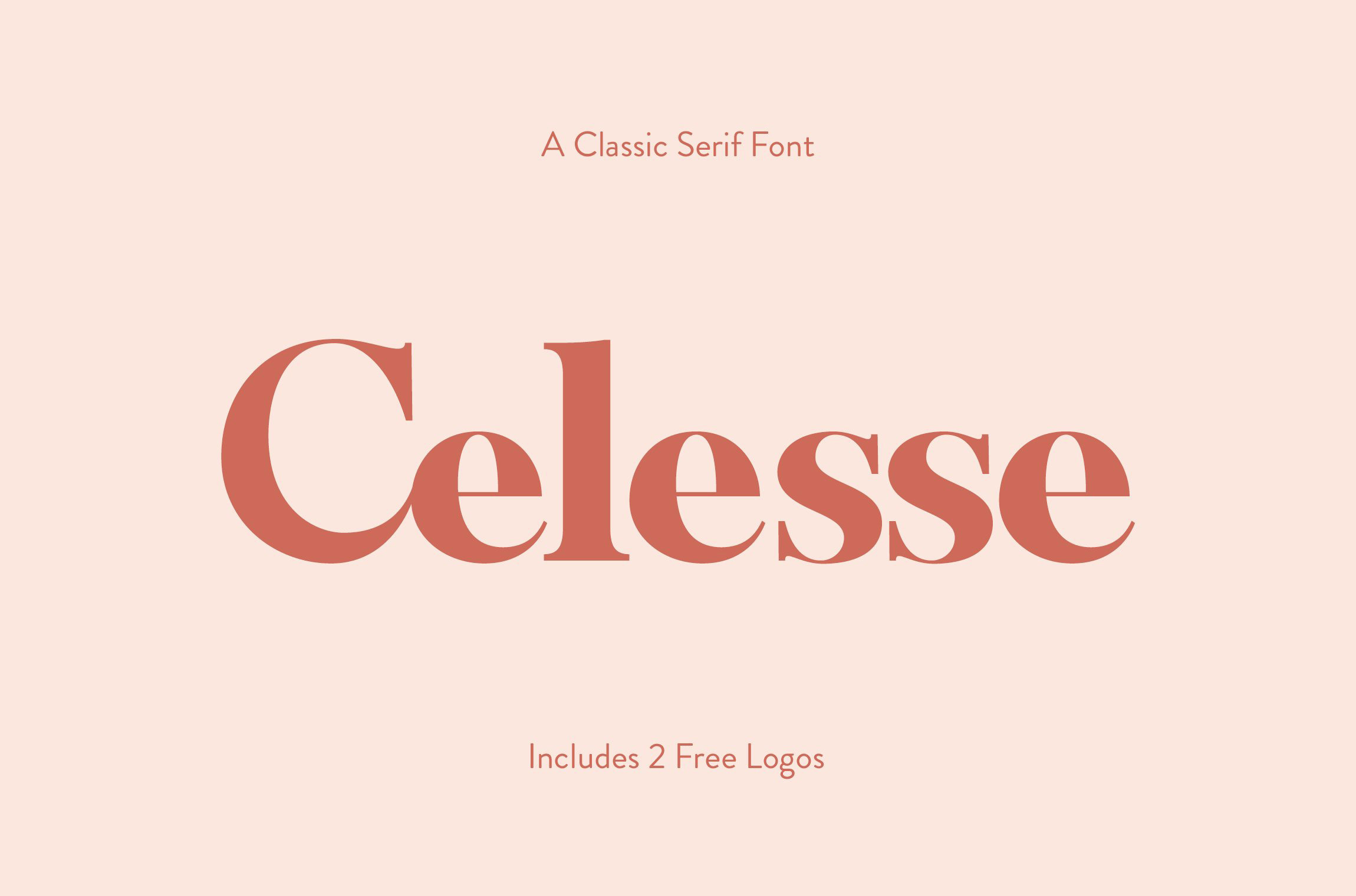
Celesse Font Plus 2 Free Logos
Celesse is a classic serif font, perfect for creating bold & gorgeous designs. (+ 2 Free Logos)
Pour yourself a glass of your finest wine and get classy with Celesse. This font is great for designing elegant logos, quotes, magazine covers, wedding cards, invitations, and brandings. Its stark contrasting lines are best used in headlines and projects with big type. Celesse adds timeless beauty, heavenly curves and a classic appearance to any project.